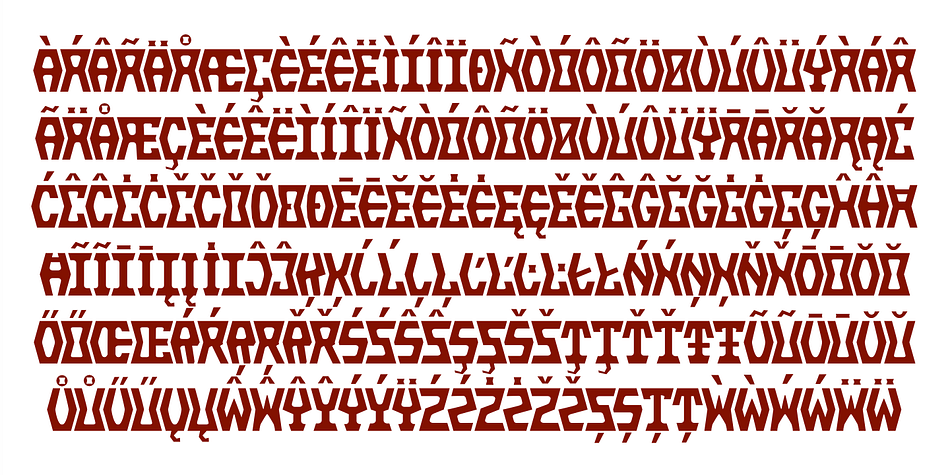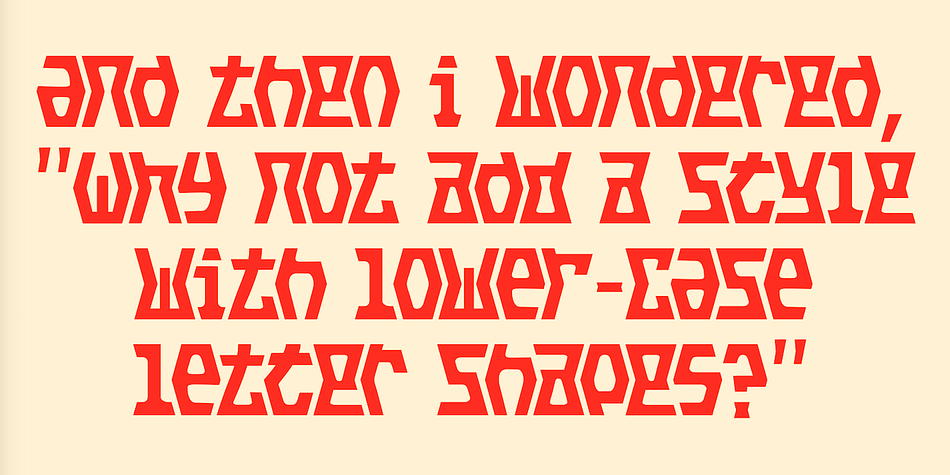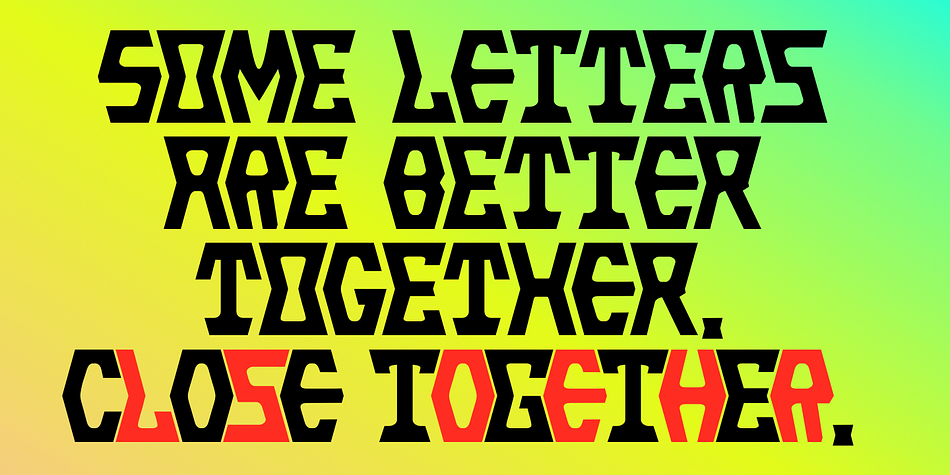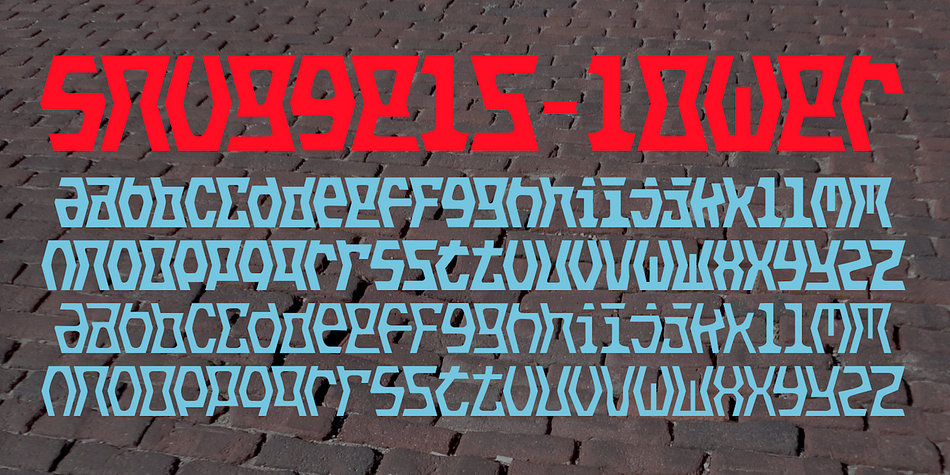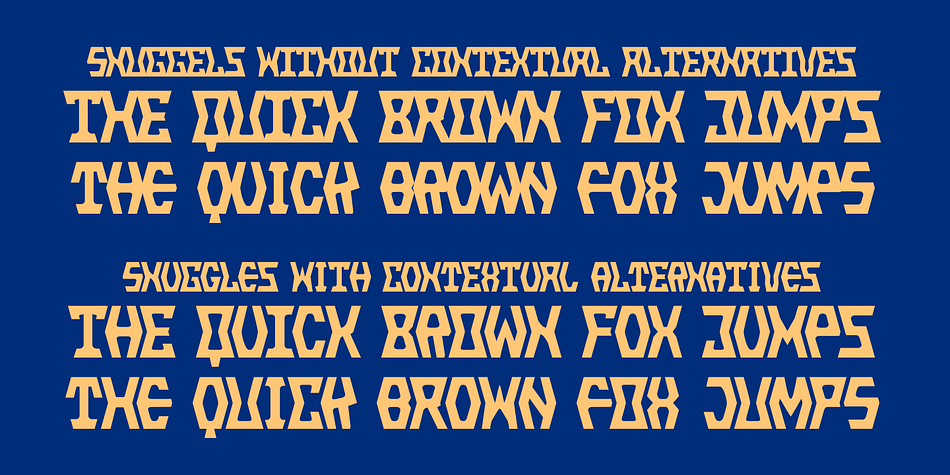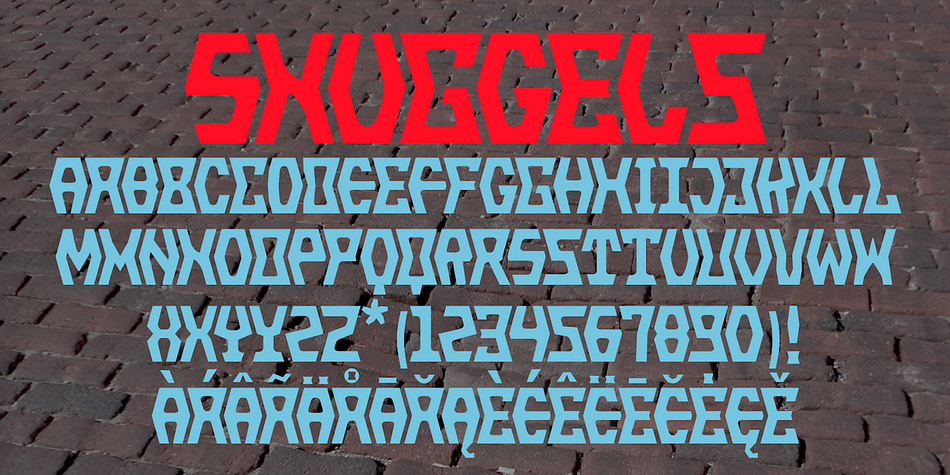
Designed by Robert Schenk, Snuggels is a display and novelty font family. This typeface has four styles and was published by Ingrimayne Type.
Snuggles began as a set of hexagons and hour-glass shapes that fit together. Letters were formed from these shapes with effort made to preserve as much as possible the original outlines. The result is two sets of letters that by themselves are awkward and misshapen and only look good when mixed together. The OpenType contextual alternatives (calt) feature automatically alternates the sets in computer programs that support this feature.
Snuggles-Lower replaces the letters of Snuggles-Regular with lower-case shapes, but without ascenders or descenders, and the results are jarring. Several of these lower-case shapes (D, N, T, W, and Y) are available as OpenType stylistic-set alternatives in the Snuggels-Regular font. Both Snuggels-Regular and Snuggels-Lower have light versions. Snuggels loves to be noticed so it likes to be large and it considers foolish anyone who would use it as body text.